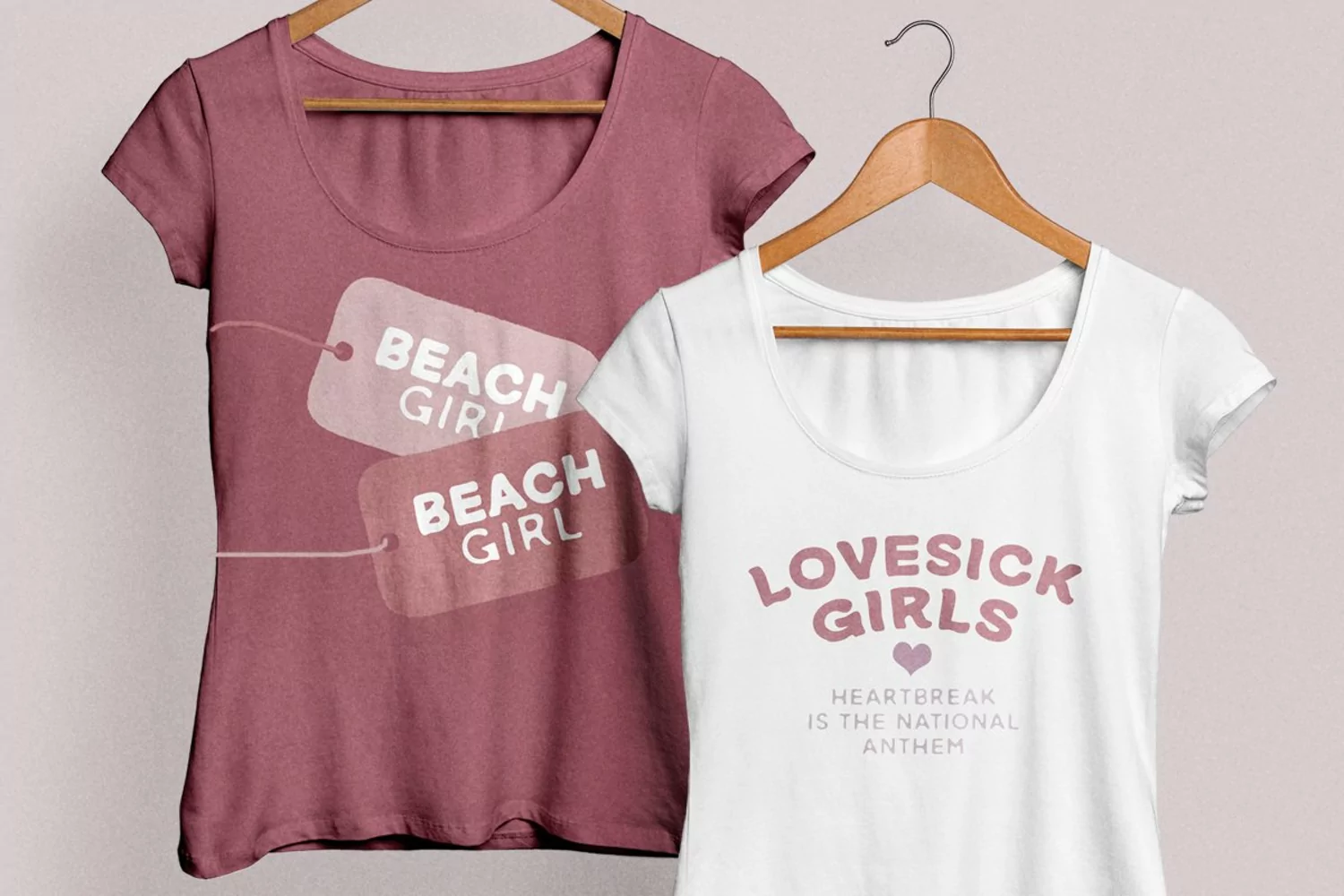
Love Board is a handmade font based in sans serif. With carefully crafted, this font have a hand lettering vibes that will make your design more natural and humanist. You can use this font for book cover, your t-shirt design, quotes, or even your letter! With two weight that compliment each other, this font will suitable for many projects. This font also support multilingual!